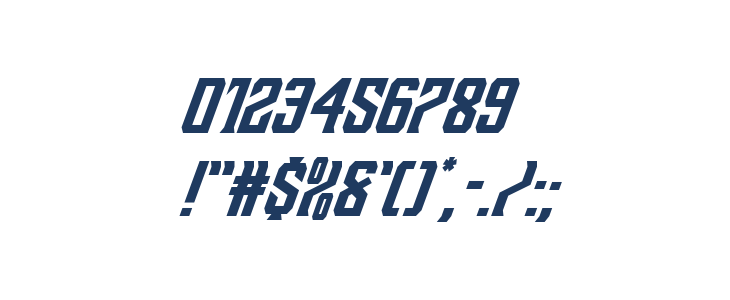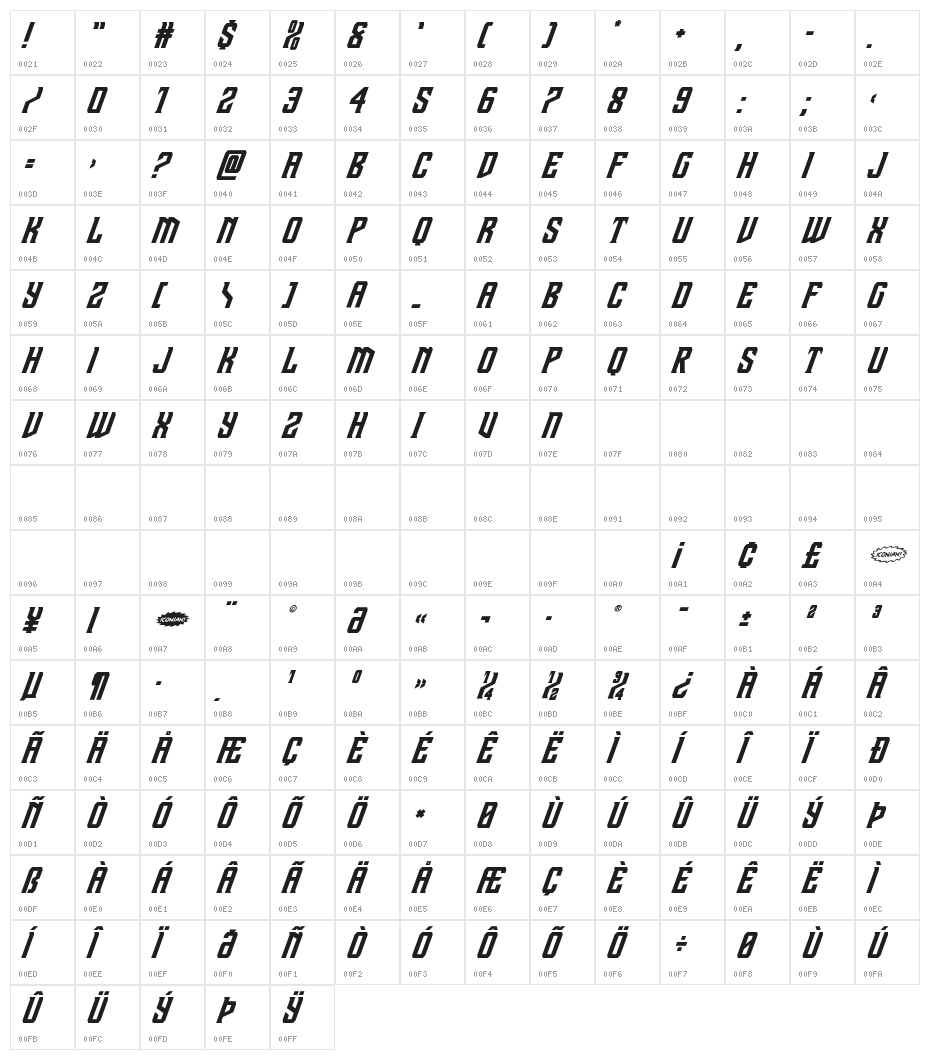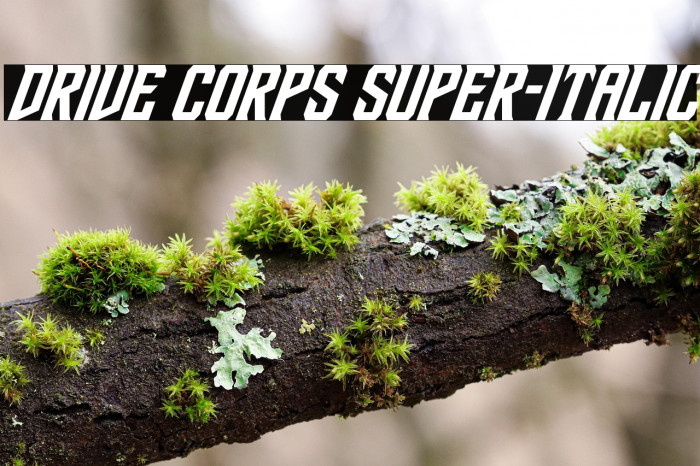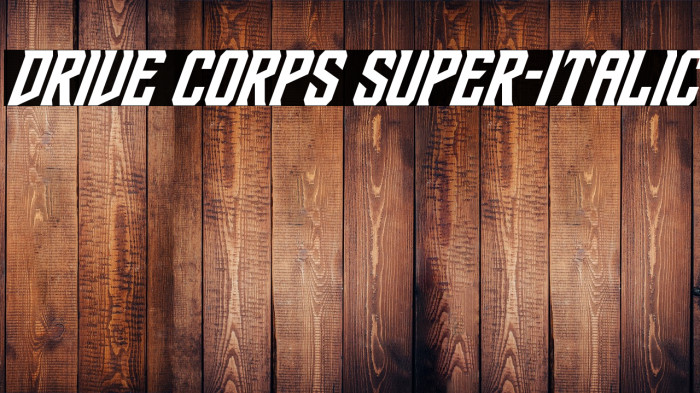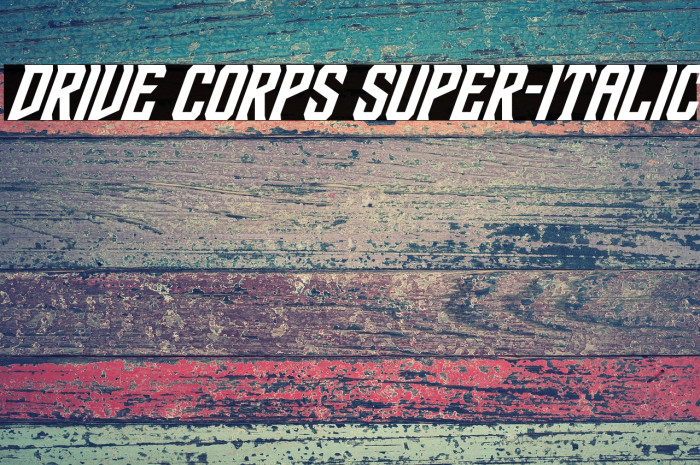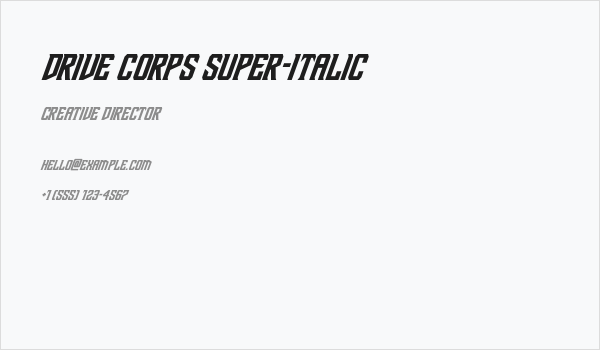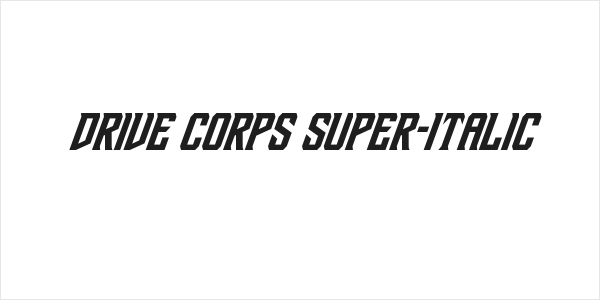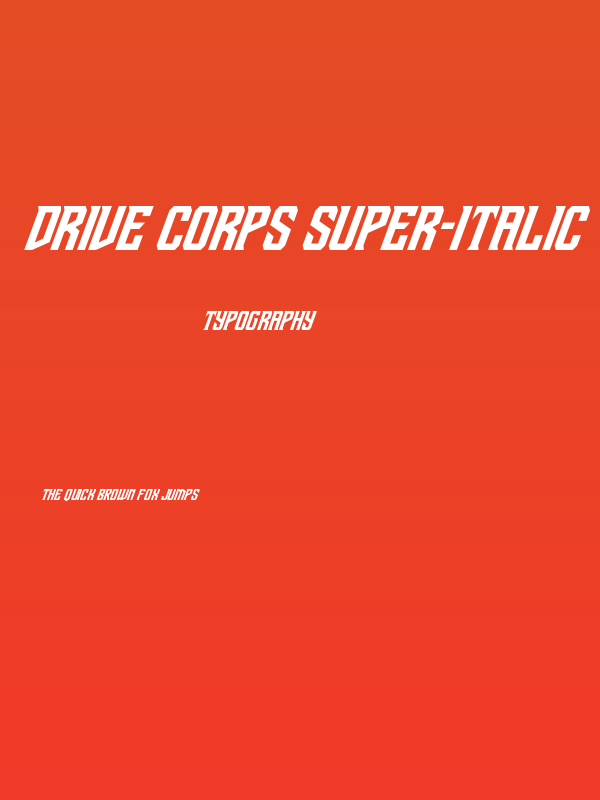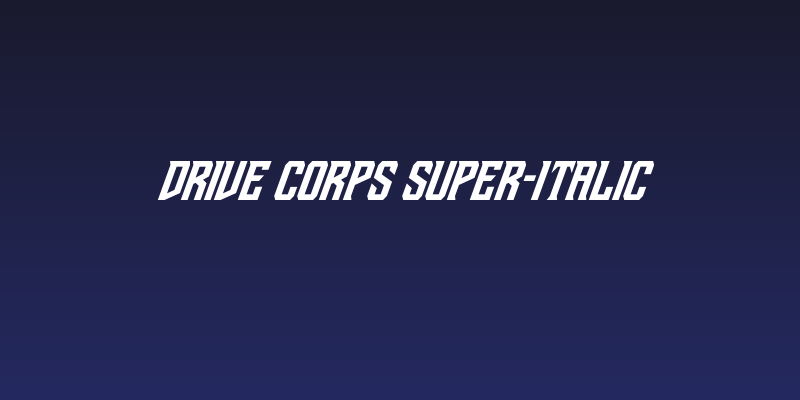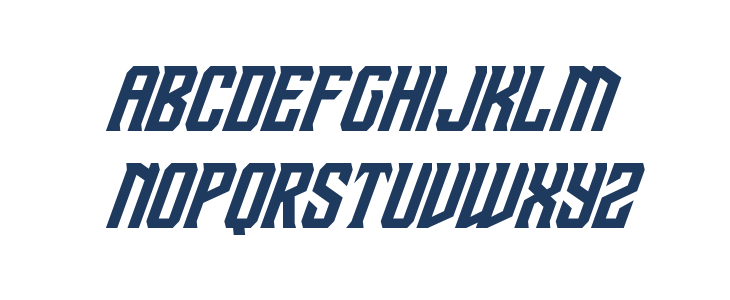
Drive Corps Super-Italic Font
Drive Corps Super-Italic Description
This font features a bold, italicized style with a strong, dynamic presence. The characters are sharply angled, giving a sense of movement and speed. The uppercase letters are particularly striking, with a consistent slant that adds to the overall energetic feel. The numbers and special characters maintain this bold, italicized look, ensuring a cohesive appearance across all glyphs. The font's design is modern and assertive, making it ideal for projects that require a strong visual impact.
| Proposed Projects | Ideal for sports branding, automotive advertisements, dynamic posters, and any project needing a bold, energetic typeface. |